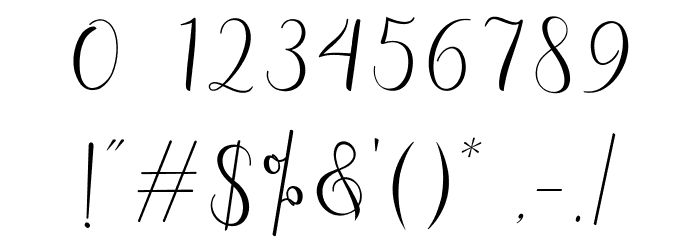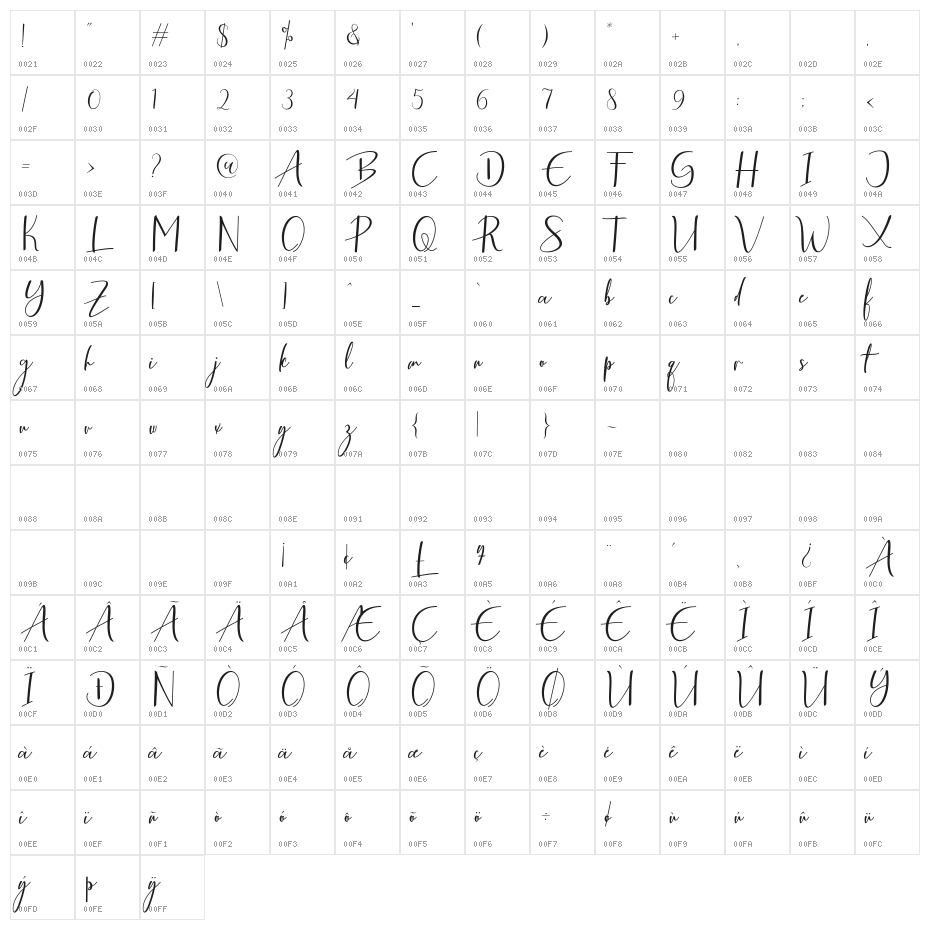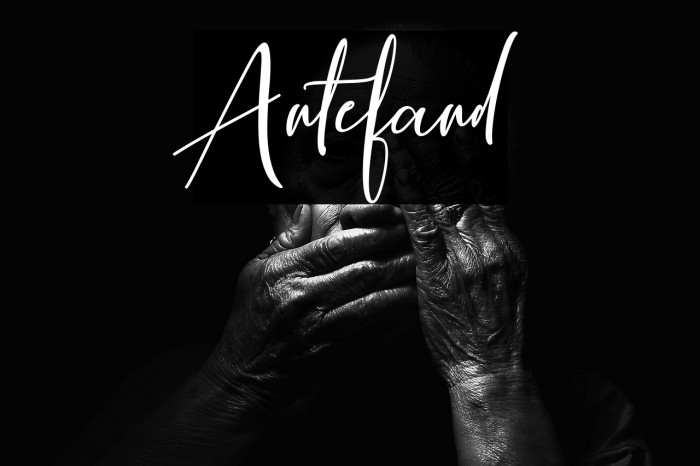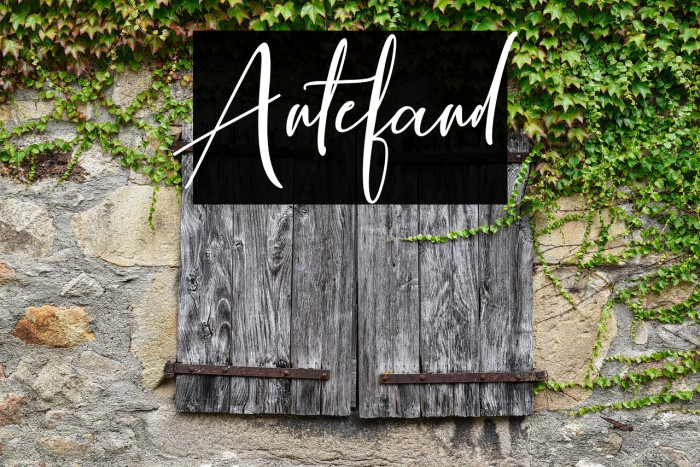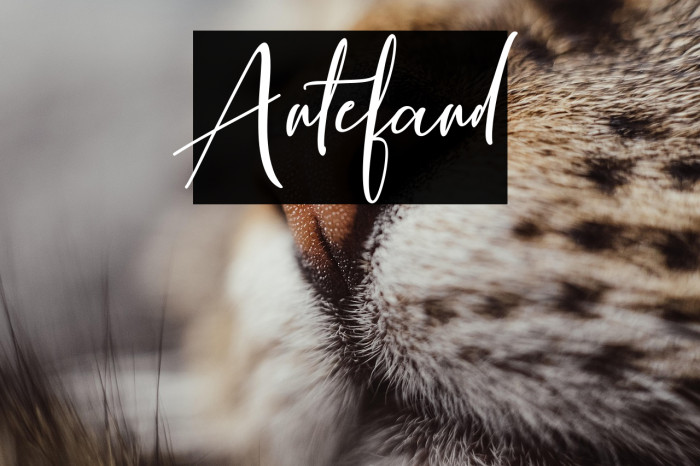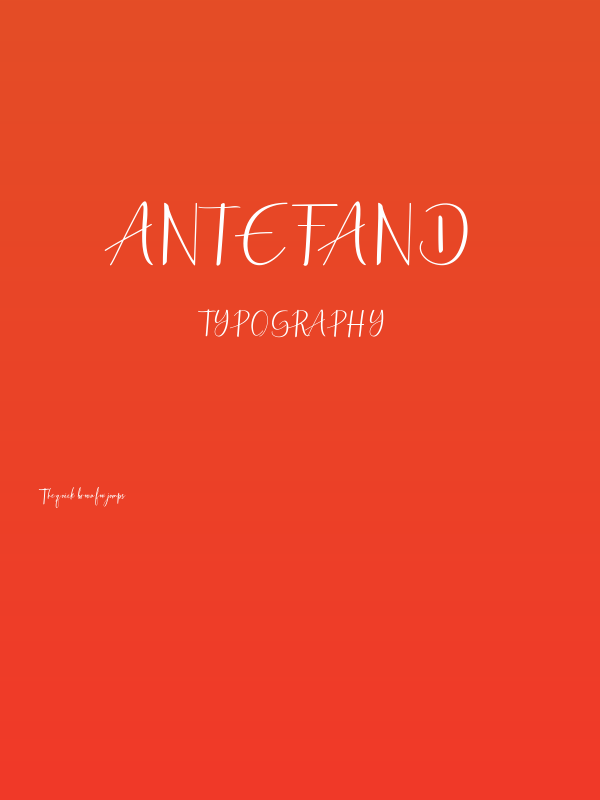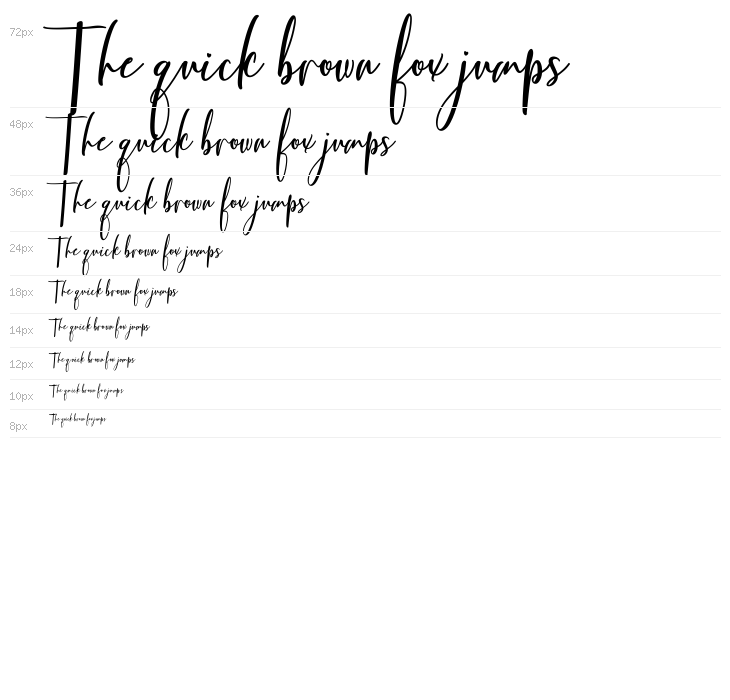
Antefand Font
Antefand Description
This font features a unique blend of elegance and modernity, characterized by its flowing, cursive style. The uppercase letters are tall and slender, with a slight slant that adds a dynamic feel. The lowercase letters are more fluid, with intricate loops and swirls that give a handwritten appearance. The numerals are consistent with the overall style, maintaining the same elegant curves. Special characters are designed with the same attention to detail, ensuring a cohesive look across all glyphs. This font is perfect for projects that require a touch of sophistication and creativity.